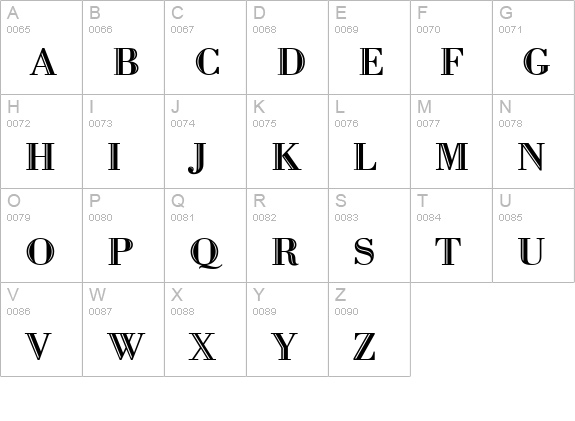
Introducing Vangard, a breathtaking font that embodies elegance, sophistication, and creativity. With its sleek lines and modern aesthetic, Vangard is the perfect choice for any design project that requires a touch of class. What sets Vangard apart from other fonts is not only its impeccable design, but also the fact that it is completely free. Yes, you read that right! Vangard is freely available to download at FontsMarket.com, making it accessible to designers and enthusiasts of all levels. Imagine the possibilities with Vangard. Whether you're creating a logo, designing a website, or crafting a stunning invitation, this font will elevate your work to new heights. Its versatility allows it to seamlessly blend into any style, whether it be contemporary, minimalist, or even vintage. Vangard's characters are meticulously crafted, with each curve and stroke exuding a sense of refinement and precision. Its bold yet balanced letterforms demand attention, making a lasting impression on anyone who lays eyes on them. But it's not just the visual appeal that makes Vangard stand out. This font also boasts exceptional legibility, ensuring that your message is delivered with clarity and impact. Whether it's a headline or body text, Vangard can effortlessly handle any typographic challenge. The creators of Vangard understand the importance of accessibility, which is why they have generously made it available for free. Now, designers from all walks of life can enhance their projects without breaking the bank. So why wait? Head over to FontsMarket.com and download Vangard today. Unleash your creativity and explore the limitless possibilities that this font has to offer.